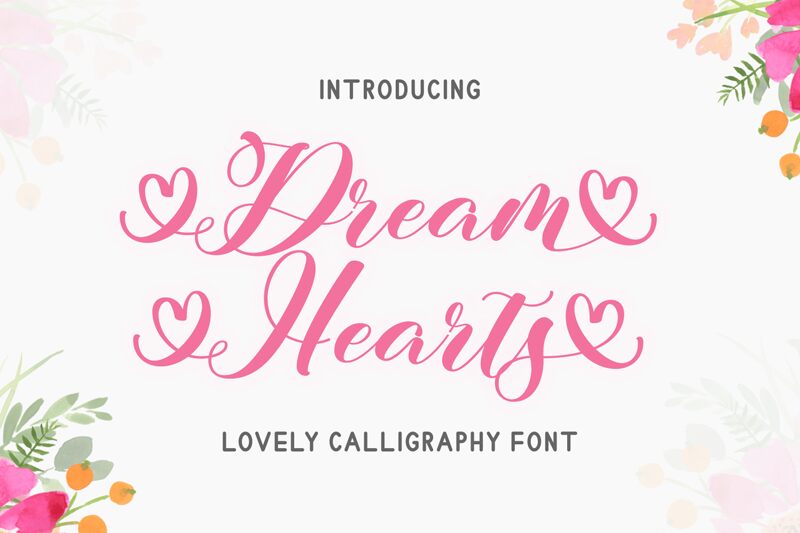
Dreamhearts, designed by Makashi, is a font that encapsulates the essence of romance and elegance. Its calligraphic strokes evoke the timeless beauty of hand-penned love letters, making it ideal for Valentine's Day projects, wedding invitations, and heartfelt branding endeavors. The semi-light weight of Dreamhearts lends it a delicate yet unmistakable presence, balancing finesse with readability.
With its artistic flourishes and swooping lines, this typeface boasts an aesthetic appeal that is both sophisticated and emotionally stirring. The inclusion of heart motifs within its characters adds a touch of whimsy and charm that is sure to capture the hearts of viewers. Whether used in print or digital media, Dreamhearts offers designers a versatile tool for creating work that requires a personal, intimate touch.